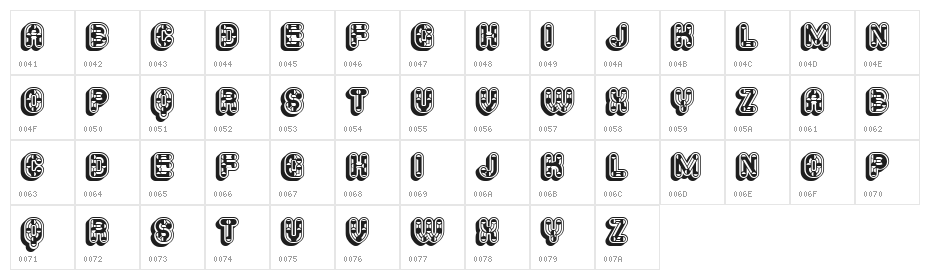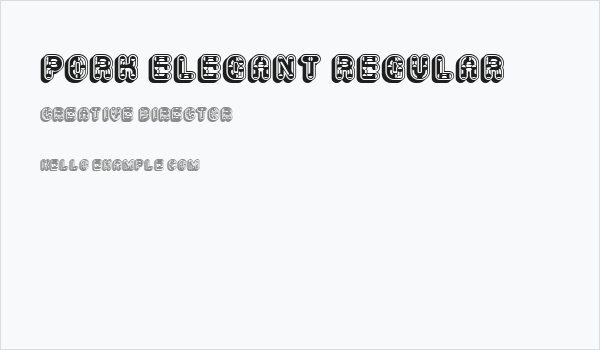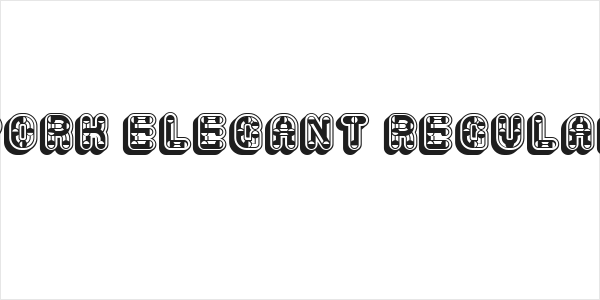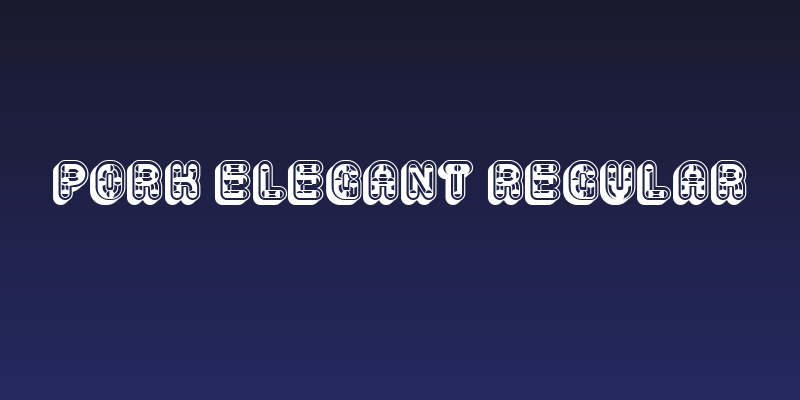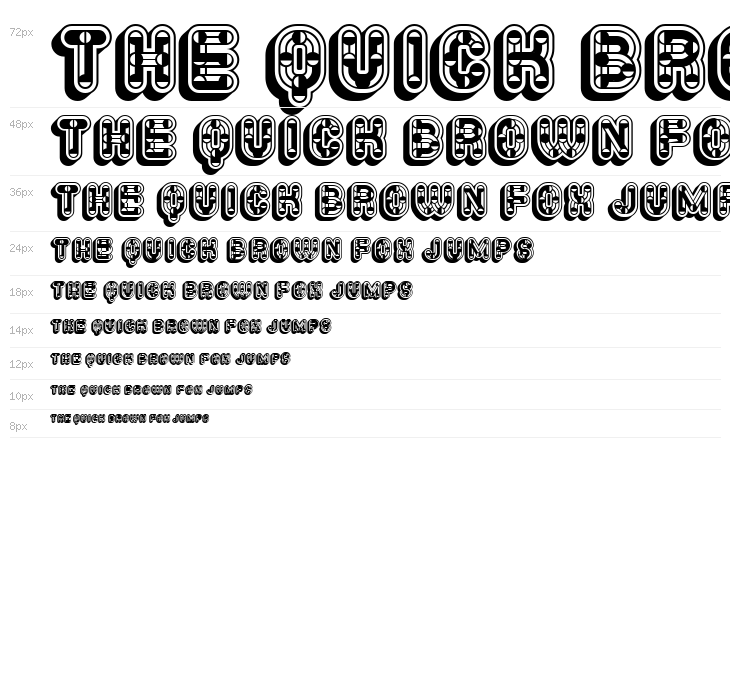
Pork Elegant Regular Font
Pork Elegant Regular Description
This font features a bold, decorative style with a playful and intricate design. Each character is outlined with a thick black border, creating a strong visual impact. The interior of the letters is filled with a complex pattern of lines and shapes, adding depth and texture. The overall appearance is dynamic and eye-catching, making it ideal for projects that require a standout display font. The characters are evenly spaced, ensuring readability despite the intricate design. This font is perfect for creative projects where a unique and bold statement is needed.
| Proposed Projects | Ideal for posters, logos, headlines, and any creative project needing a bold statement. |